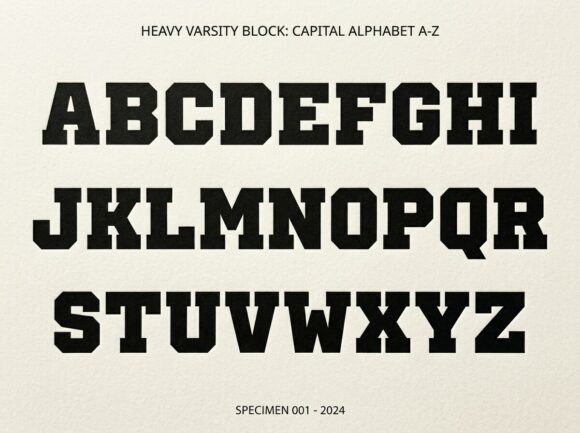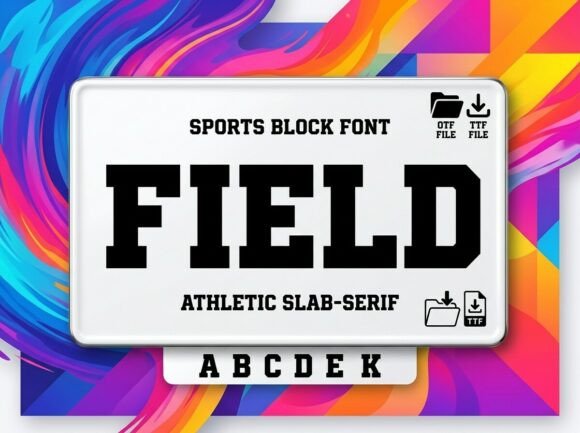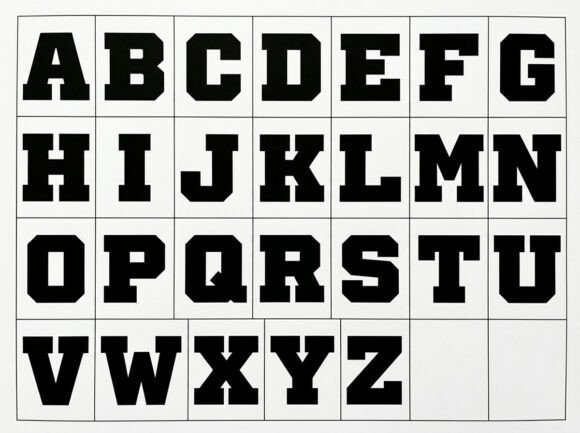
Introducing Field Font: The Ultimate Decorative Display Font
Are you tired of using the same old fonts for your creative projects? Do you want to make a statement and stand out from the crowd? Look no further than Field Font, a stunning decorative display font designed to be the center of attention. With its unique artistic elements and strong visual personality, this font is perfect for creators who want to break away from the ordinary and add a touch of elegance to their work.
What Makes Field Font Special?
Field Font is a versatile font that is perfect for a variety of creative projects, including bold headlines, artistic logos, and creative packaging. Its unique design elements and strong visual personality make it an excellent choice for anyone looking to add a touch of sophistication to their work. Whether you’re a designer, craftsperson, or simply a DIY enthusiast, Field Font is sure to impress.
Key Features of Field Font
• Unique Artistic Elements: Field Font features unique artistic elements that set it apart from other fonts. Its decorative design makes it perfect for headlines, logos, and other creative projects.
• Strong Visual Personality: This font has a strong visual personality that is sure to make a statement. Its bold and elegant design makes it perfect for anyone looking to add a touch of sophistication to their work.
• Versatile: Field Font is versatile enough for use in a variety of creative projects, including bold headlines, artistic logos, and creative packaging.
• Professional and Polished Finish: Despite its decorative design, Field Font maintains a professional and polished finish that is sure to impress.
Why Choose Field Font?
There are many reasons why Field Font is an excellent choice for designers and crafters. Here are just a few:
• Stand Out from the Crowd: With its unique artistic elements and strong visual personality, Field Font is sure to make your creative projects stand out from the crowd.
• Elegant and Sophisticated: This font adds a touch of elegance and sophistication to any creative project, making it perfect for designers and craftspersons who want to create high-end work.
• Versatile: Field Font is versatile enough for use in a variety of creative projects, making it an excellent addition to any designer’s or craftsperson’s toolkit.
• Professional and Polished Finish: This font maintains a professional and polished finish that is sure to impress clients and colleagues alike.
How to Use Field Font
Field Font is easy to use and can be incorporated into a variety of creative projects. Here are a few ideas to get you started:
• Headlines and Titles: Use Field Font to create bold and eye-catching headlines and titles for your creative projects.
• Logos and Branding: This font is perfect for creating artistic logos and branding materials that are sure to make a statement.
• Packaging and Labels: Use Field Font to add a touch of elegance and sophistication to your packaging and labels.
Font Name Field Font
Author Angel_Srapix
Field Font is a stunning decorative display font that is sure to make a statement in any creative project. With its unique artistic elements, strong visual personality, and versatile design, this font is perfect for designers and crafters who want to break away from the ordinary and add a touch of elegance to their work. Whether you’re creating bold headlines, artistic logos, or creative packaging, Field Font is an excellent choice. So why wait? Purchase Field Font today and take your creative projects to the next level!